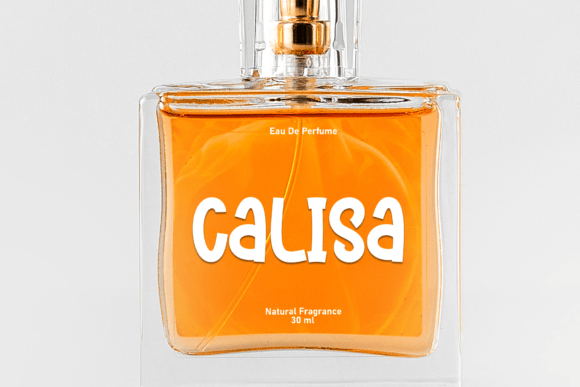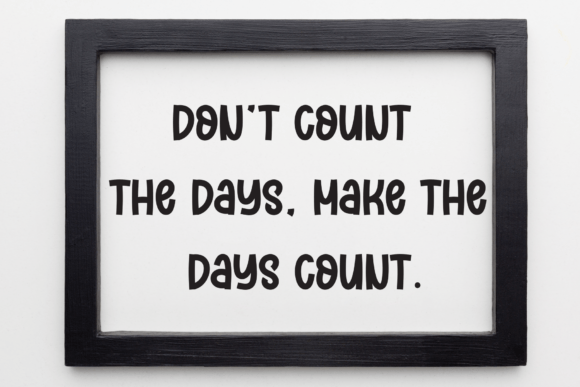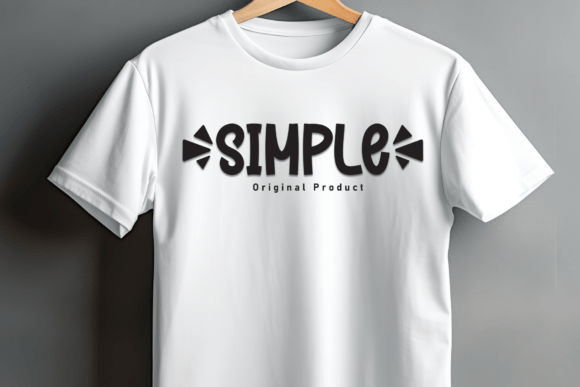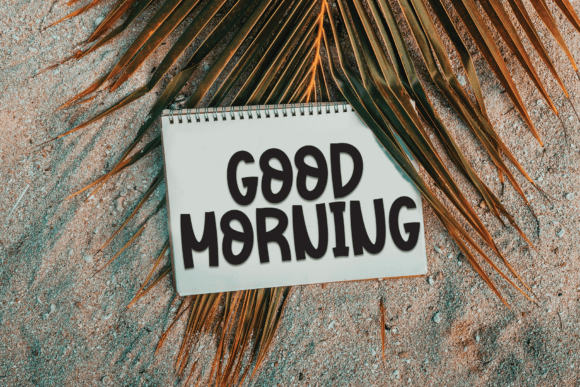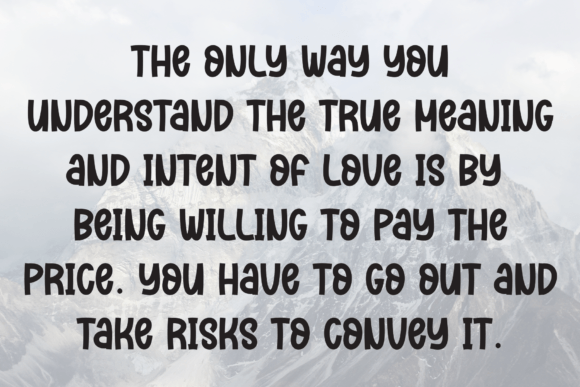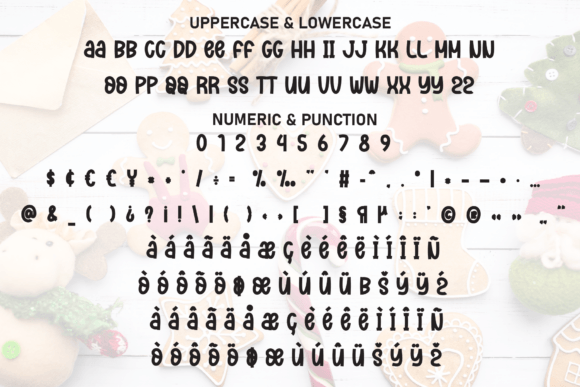
Candy Gingerbread Font: The Sweetest Addition to Your Design Collection
Are you on the hunt for a font that embodies the essence of joy, innocence, and warmth? Look no further than the delightful Candy Gingerbread Font! This charming handwritten display font is sure to captivate your audience with its playful twist and endearing charm. In this article, we’ll dive into the wonderful world of Candy Gingerbread Font, exploring its features, uses, and benefits for designers and crafters alike.
A Font that Spreads Joy and Cheer
The Candy Gingerbread Font is a true showstopper, boasting a whimsical and carefree design that’s perfect for injecting a dose of fun into your creative projects. Its handwritten style exudes a sense of innocence and cordiality, making it an ideal choice for wedding invitations, greeting cards, and other celebratory designs. Whether you’re a professional designer or a crafty DIY enthusiast, this font is sure to bring a smile to your face and inspire your creativity.
Seamless Integration into Your Designs
One of the standout features of the Candy Gingerbread Font is its versatility. This font seamlessly integrates into a wide range of designs, from elegant wedding stationery to playful party invitations. Its unique charm and character make it an excellent choice for adding a personalized touch to your creations. Whether you’re designing for digital or print, the Candy Gingerbread Font is sure to make your work stand out from the crowd.
Wedding invitations and cards are a perfect match for the Candy Gingerbread Font. Its whimsical design and playful twist add a romantic and lighthearted touch to your wedding stationery, making it an excellent choice for couples looking to express their personality and style. From save-the-date cards to thank-you notes, this font is sure to make your wedding correspondence a true reflection of your love story.
Breathe Life into Your Designs with Candy Gingerbread Font
The Candy Gingerbread Font is more than just a font – it’s a design statement. Its engaging typography and fun-loving spirit make it the perfect choice for designers and crafters looking to add a dash of personality to their work. Whether you’re creating a brand identity, packaging, or marketing materials, this font is sure to inject a dose of energy and enthusiasm into your designs.
Key Features of Candy Gingerbread Font
- Handwritten display font: The Candy Gingerbread Font boasts a unique, handwritten style that’s perfect for adding a personal touch to your designs.
- Playful twist: This font’s playful twist adds a whimsical touch to your designs, making it perfect for wedding invitations, cards, and other celebratory materials.
- Innocence and cordiality: The Candy Gingerbread Font exudes a sense of innocence and cordiality, making it an excellent choice for designs that require a warm and welcoming tone.
- Versatility: This font seamlessly integrates into a wide range of designs, from digital to print, and from elegant to playful.
Tips for Using Candy Gingerbread Font
To get the most out of the Candy Gingerbread Font, here are a few tips to keep in mind:
- Pair with complementary fonts: Combine the Candy Gingerbread Font with complementary fonts to create a unique and visually appealing typography.
- Experiment with colors: Don’t be afraid to experiment with different colors and textures to add depth and interest to your designs.
- Use it sparingly: While the Candy Gingerbread Font is sure to bring joy to your designs, use it sparingly to avoid overwhelming your audience.
In conclusion, the Candy Gingerbread Font is a delightful addition to any design collection. Its charming allure, playful twist, and endearing charm make it the perfect choice for designers and crafters looking to add a dash of fun and personality to their work. Whether you’re creating wedding invitations, cards, or other designs, this font is sure to bring a smile to your face and inspire your creativity. So why wait? Embrace the Candy Gingerbread Font today and sprinkle a dash of joy into your design canvas!